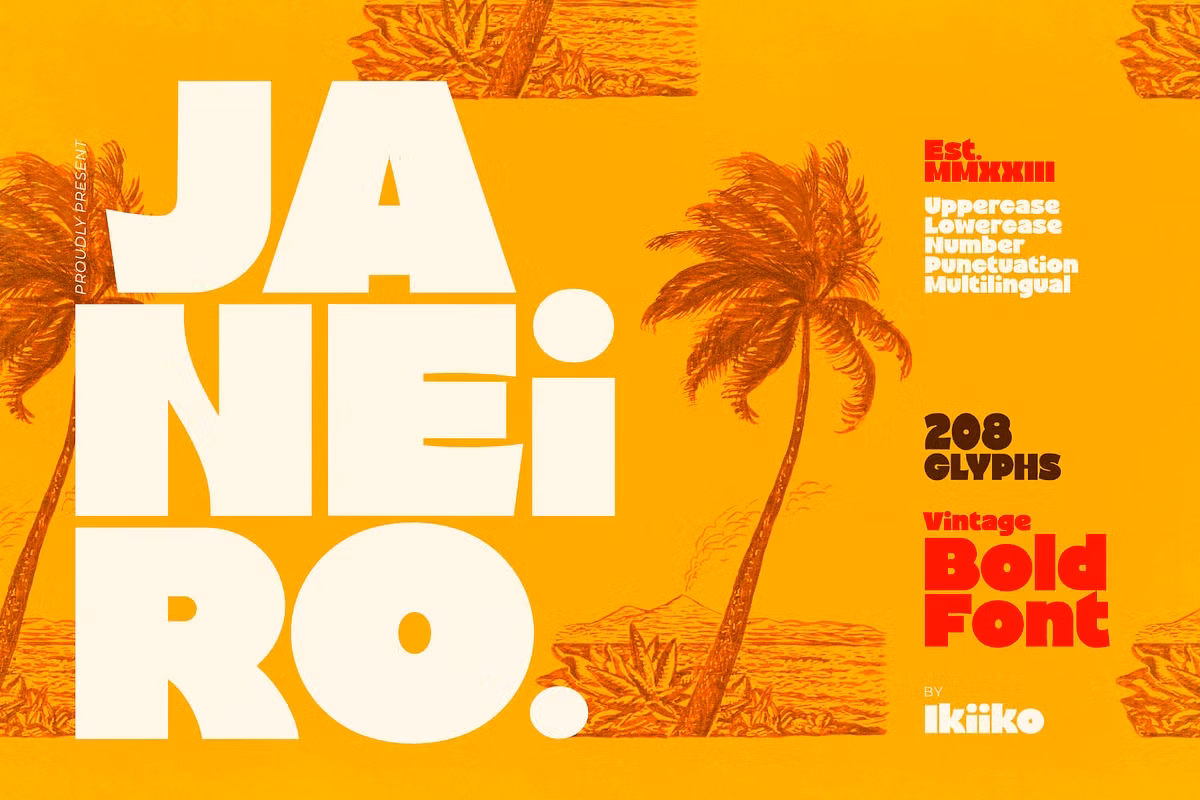
Janeiro - Vintage Bold Font Free Download
Janeiro - Vintage Bold Font Free Download is a striking, bold typeface that combines the timeless charm of vintage design with modern boldness. With its thick letterforms and strong presence, Janeiro is perfect for making a statement in logos, posters, branding, packaging, and any project that requires a vintage yet contemporary feel.
Its unique design offers a retro aesthetic with a modern edge, making it suitable for projects that want to evoke a sense of nostalgia while maintaining a fresh and dynamic look.